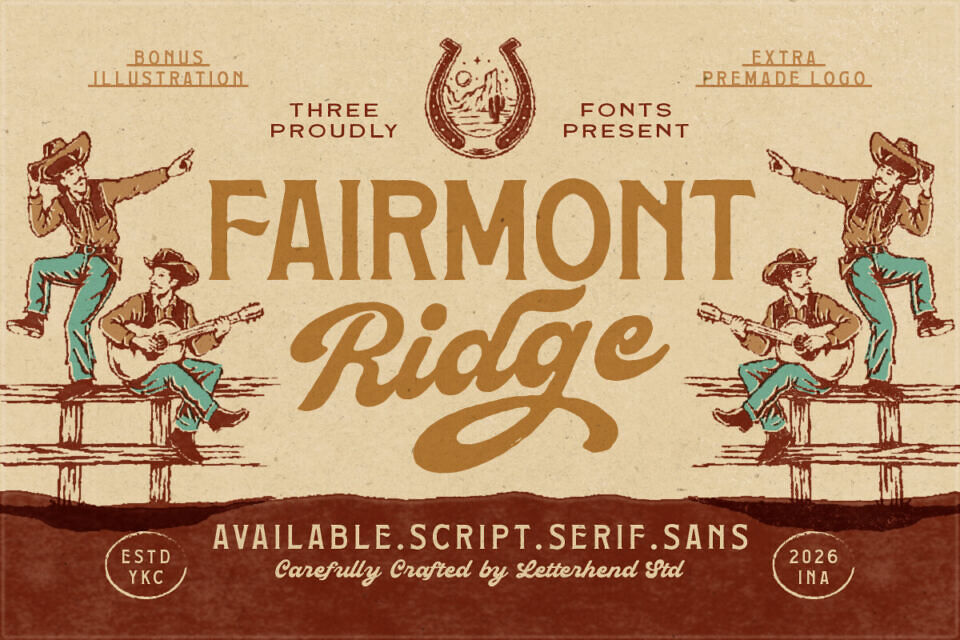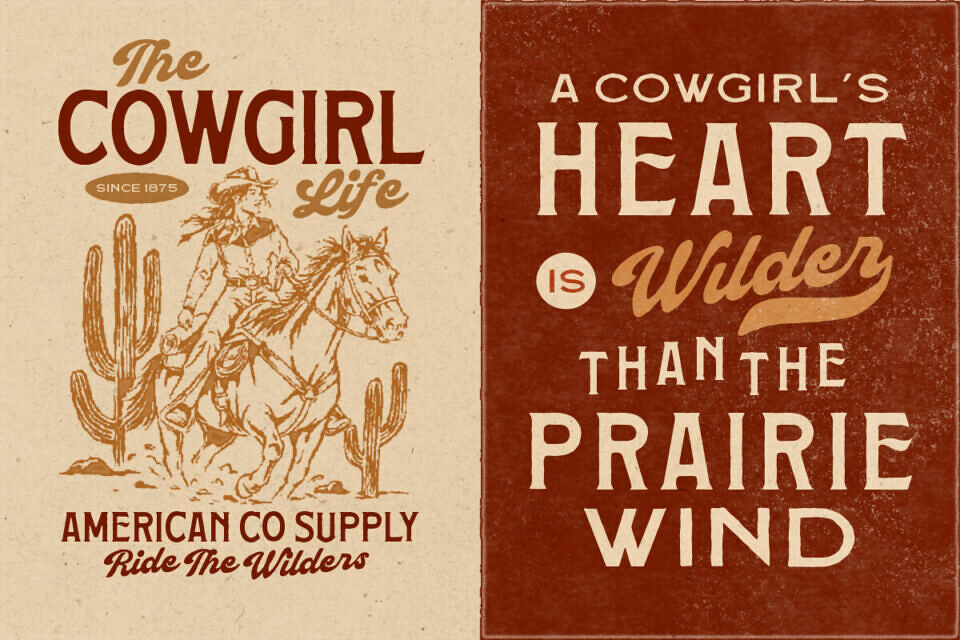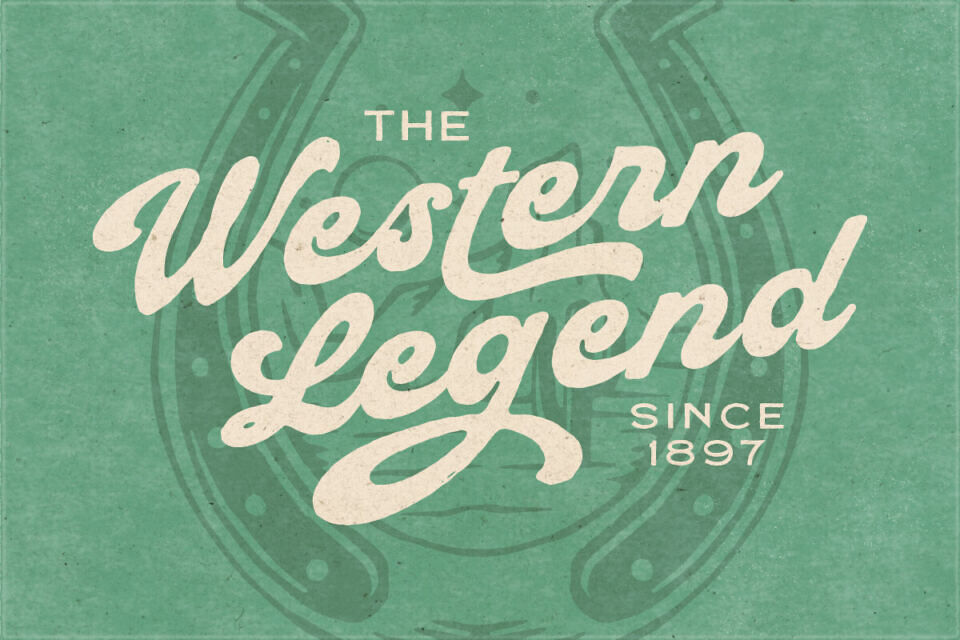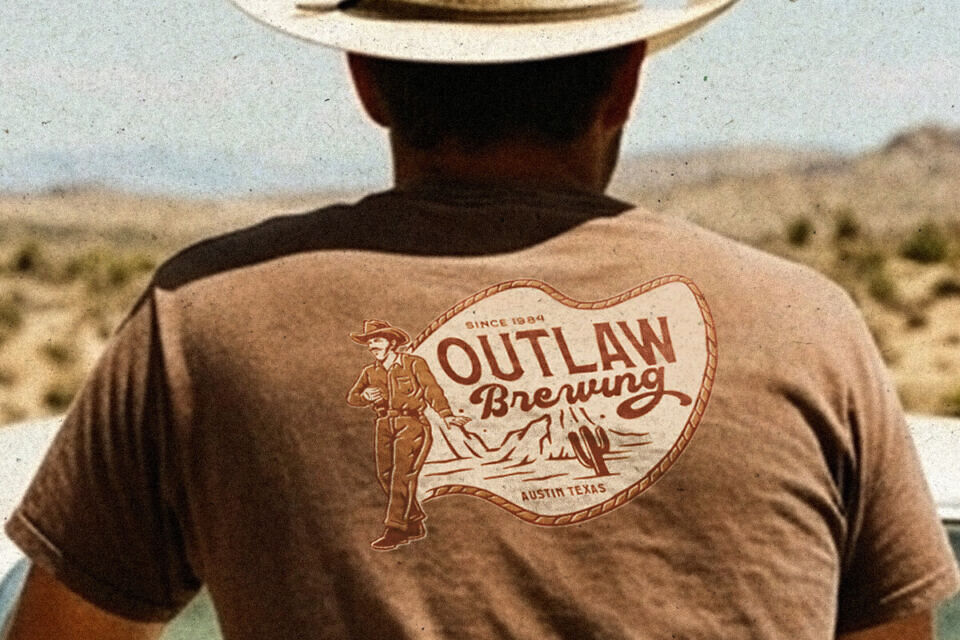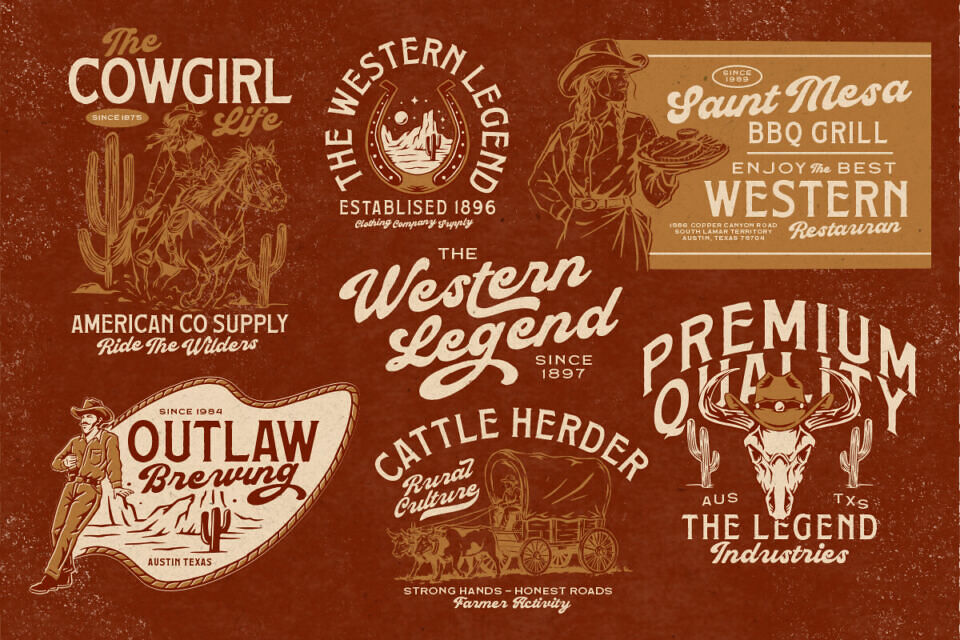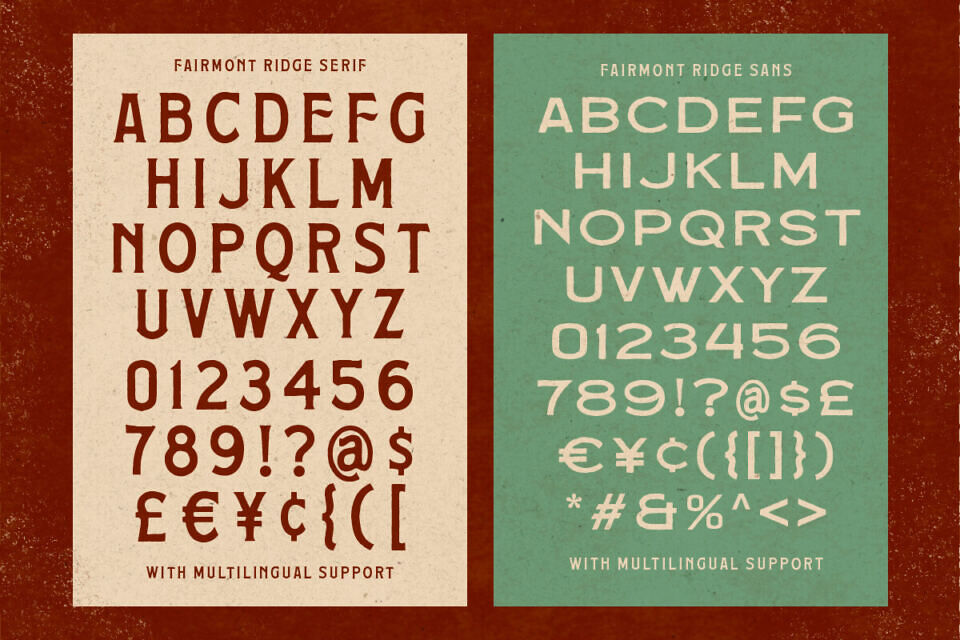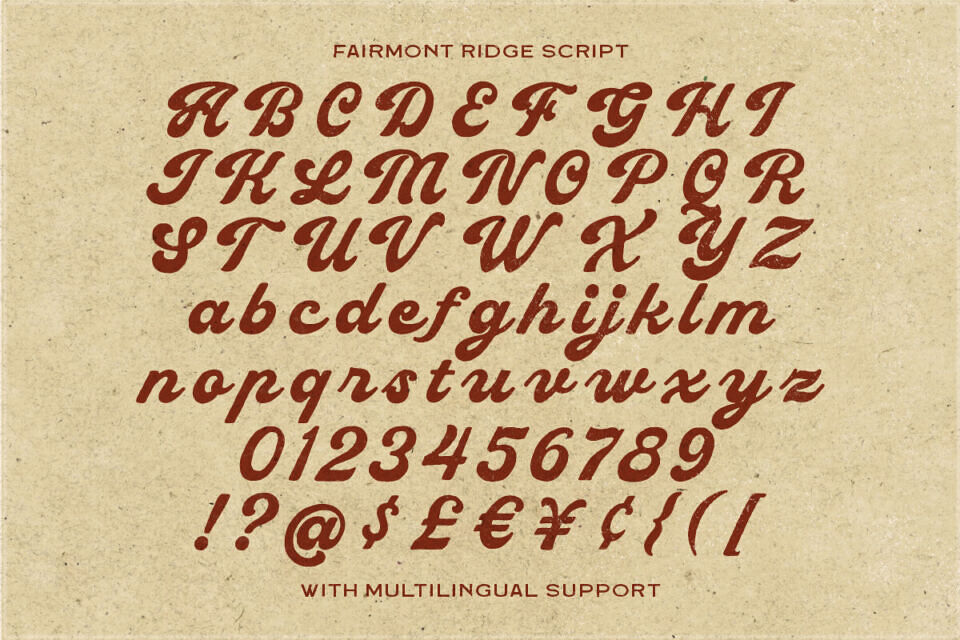
Fairmont Ridge Font Family
Fairmont Ridge rides in with classic western charm, blending bold serif, smooth script, and clean sans styles into one rugged vintage family. Inspired by old cowboy signs, dusty roadside motels, and country music posters, this font carries a warm retro spirit with a handcrafted feel that looks timeless and full of character.